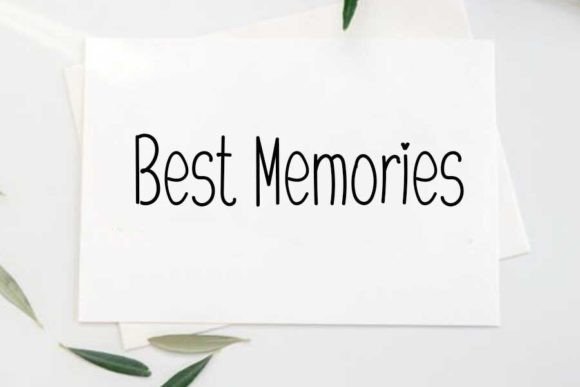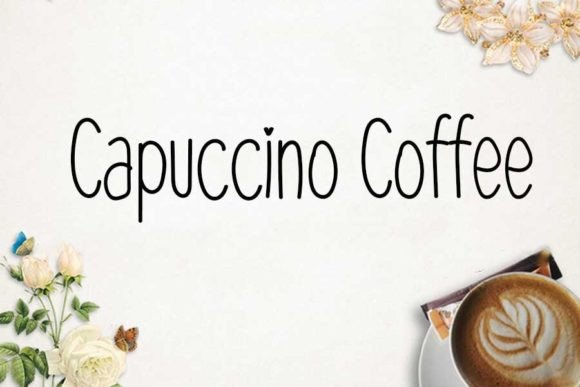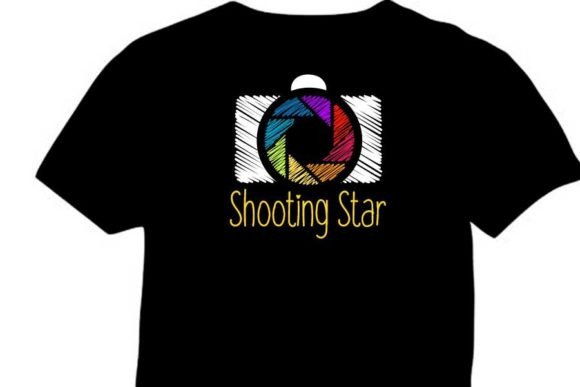
Introduction to Hello Hillary Font
Have you ever stumbled upon a font that makes your creative project shine? For designers, finding the perfect font can be a game-changer. It’s like discovering a hidden treasure that elevates your design from good to great. For me, that treasure is the Hello Hillary Font – a delicate and elegant handwritten font that has captured my heart.
As a designer, I’ve had the pleasure of working with various fonts, but none have impressed me quite like the Hello Hillary Font. Its distinct and well-balanced letters make it a masterpiece that adds a touch of sophistication to any design. Whether you’re working on a high-quality brochure, a website, or a social media campaign, this font is sure to impress. And the best part? It’s available for free download, making it an invaluable design resource for anyone looking to take their creative projects to the next level.
- Unique, hand-drawn design with a transparent background, perfect for adding a personal touch to your designs.
- Designed for use in various design applications, including logos, branding materials, and digital art.
- Includes a wide range of characters, including uppercase and lowercase letters, numbers, and punctuation marks.
Honest Review: Hello Hillary Font
I recently came across the Hello Hillary Font, and I must say, it’s been a game-changer for my design projects. As a designer, I’m always on the lookout for high-quality fonts that can elevate my work and help me stand out from the crowd.
One of the things that I love about the Hello Hillary Font is its creative and playful feel. It’s perfect for projects that need a bit of whimsy and personality. Plus, it’s available as a free download, which is always a bonus!
Here are some of the things that work well:
- ✨ Beautiful, high-quality design
- ✨ Perfect for creative projects that need a touch of personality
- ✨ Transparent background, making it easy to customize
Of course, no font is perfect, and the Hello Hillary Font has a few limitations:
- ⚠️ Limited character set, which can be a problem for longer texts
- ⚠️ Not suitable for formal or professional projects
Overall, I’m thoroughly impressed with the Hello Hillary Font. It’s a fantastic addition to any designer’s toolkit, and I highly recommend it for creative projects. Just be mindful of its limitations, and you’ll be golden!
Hello Hillary Font
The Hello Hillary Font is a versatile and high-quality design resource that can be used in a variety of creative projects. This font features a unique and elegant style, making it perfect for adding a touch of sophistication to your designs.
Tips for Getting the Most Out of the Hello Hillary Font
To get the most out of the Hello Hillary Font, use it with a transparent background to create a clean and modern design. You can also use it in combination with other design elements, such as graphics and images, to add depth and interest to your designs.
The Hello Hillary Font is perfect for use in a variety of creative projects, including:
- Logos and branding materials
- Social media graphics and advertising
- Business cards and marketing materials
- Wedding invitations and event materials